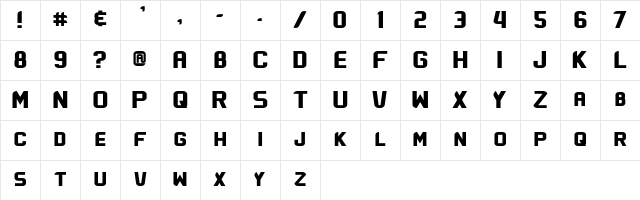
Flatwheat Upright Free Font
Flatwheat Upright
Style: Upright
Flatwheat Family
Flatwheat Upright
Design Context for Flatwheat
Flatwheat is a composed and adaptable typeface that performs quietly and consistently across a wide range of design contexts.